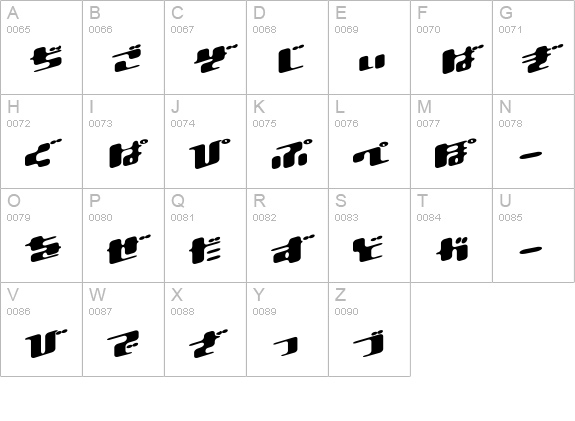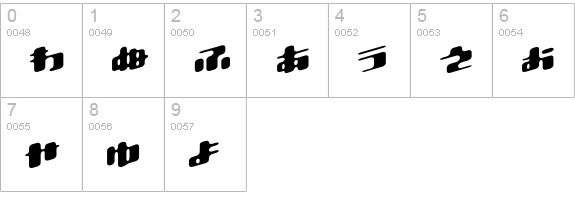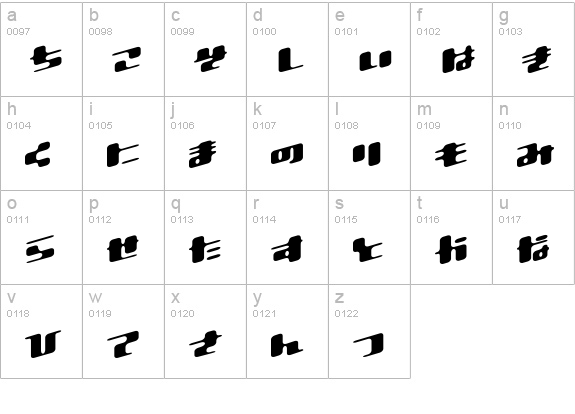
Dtron Italic Font Details
Dtron Italic is a distinctive, italic variant in the Dtron typeface family \xE2\x80\x94 well suited to design and typography projects.
Dtron Italic font is a sleek and modern typeface that exudes elegance and sophistication. Its unique combination of sharp angles and flowing curves gives it a distinctive and eye-catching look. Perfect for adding a touch of style to any design project, Dtron Italic font is versatile and can be used for a wide range of applications, from branding to editorial design. What sets Dtron Italic font apart is not just its stunning aesthetics, but also the fact that it is freely available to download at FontsMarket.com. This makes it accessible to anyone looking to elevate their designs with a high-quality typeface without breaking the bank. Whether you're a seasoned designer or just starting out, Dtron Italic font is a must-have addition to your font library.